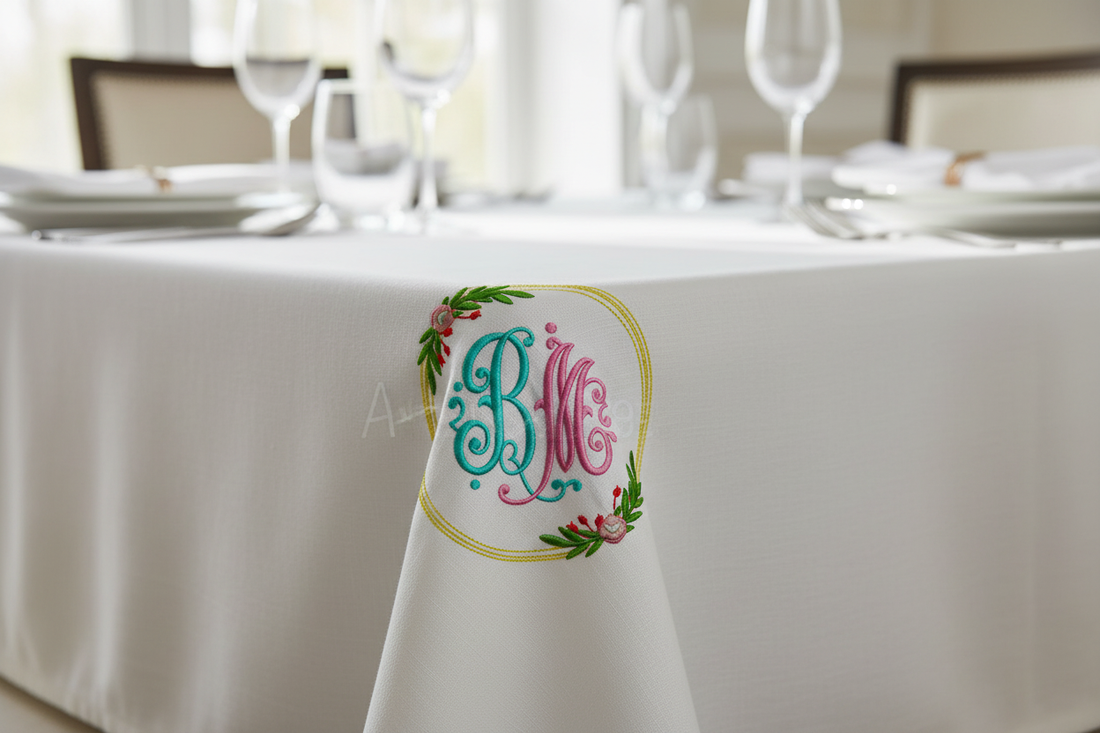
Top Wedding Embroidery Fonts for Monograms & Gifts
Why Embroidery Fonts Matter for Weddings
Wedding embroidery is all about elegance, personalization, and lasting quality. Whether you're embroidering monograms on bridal robes, personalizing tote bags for bridesmaids, or adding a romantic touch to table linens — the right font makes all the difference.
The best wedding embroidery fonts combine flowing letterforms with clean digitizing that holds up beautifully on delicate fabrics like satin, linen, and cotton.
Top Wedding Embroidery Fonts from Embroidery Sky
1. Wedding 3D Puff Embroidery Font
Our most popular wedding font. The refined letterforms work beautifully in 3D puff on structured items like caps and bags, or as flat embroidery on robes and linens. Ideal for monograms, initials, and short names.
Best for: Bridal robes, tote bags, caps, wedding favors
2. Lauren 3D Puff Embroidery Font
A flowing script with graceful curves — Lauren brings a romantic, handwritten feel to any wedding project. Works equally well as flat or 3D puff embroidery.
Best for: Personalized gifts, monogram pillows, bridesmaid bags
3. Fishtail Embroidery Font
A unique decorative font with elegant fishtail serifs. Adds a distinctive, premium touch to wedding stationery-inspired embroidery projects.
Best for: Table runners, napkins, decorative linens
Popular Wedding Embroidery Projects
- Bridal robes: Embroider the bride's name or initials on the back or chest pocket
- Bridesmaid tote bags: Personalize with each bridesmaid's name or a short message
- Ring bearer pillow: Add a monogram or "Mr & Mrs" in an elegant script
- Wedding handkerchiefs: Classic monogram embroidery for a timeless keepsake
- Table linens: Embroider the couple's initials or wedding date
Tips for Embroidering on Wedding Fabrics
- Choose thread colors that complement the fabric — white on white, gold on ivory, or blush on white are classic wedding combinations